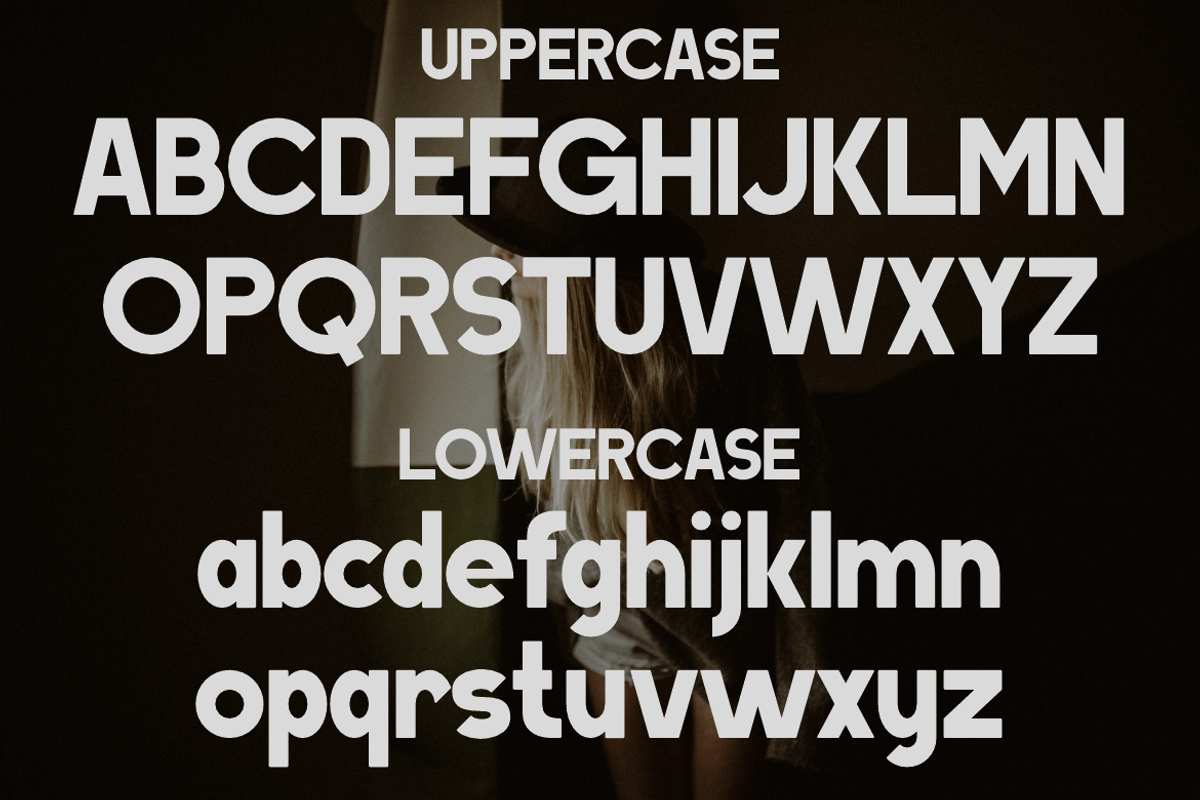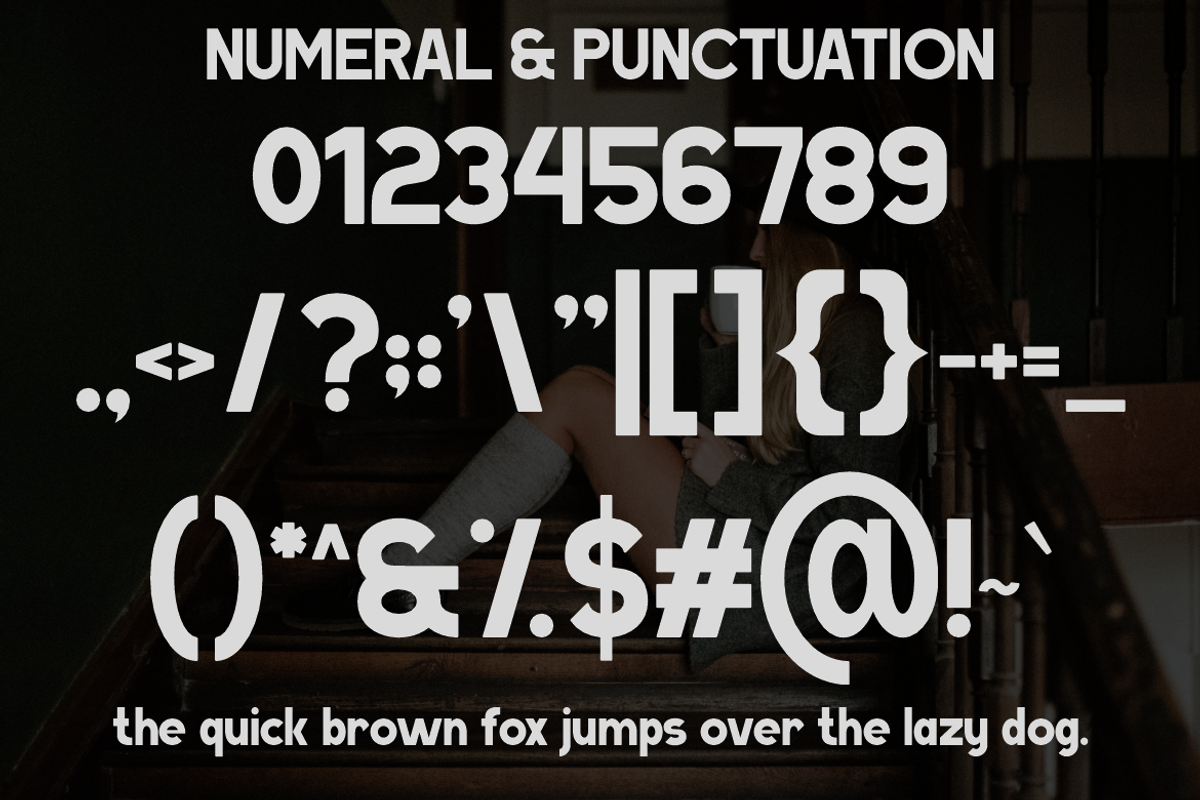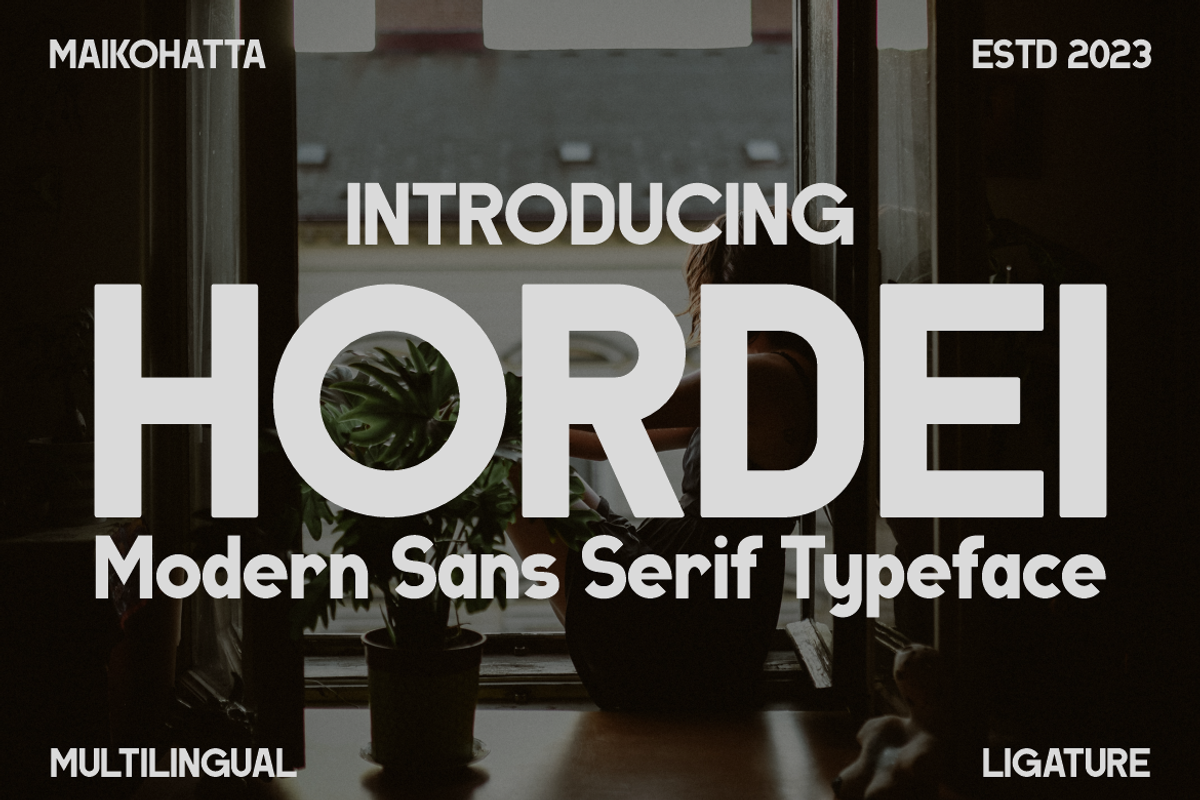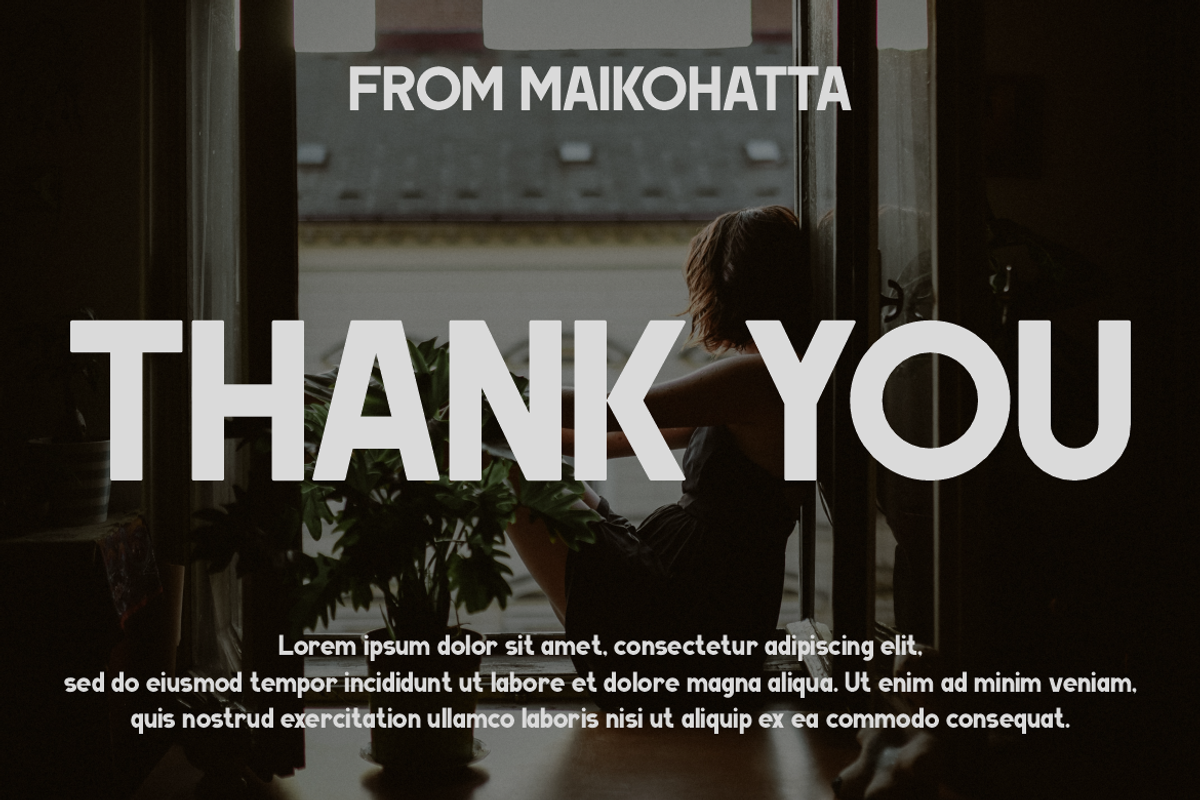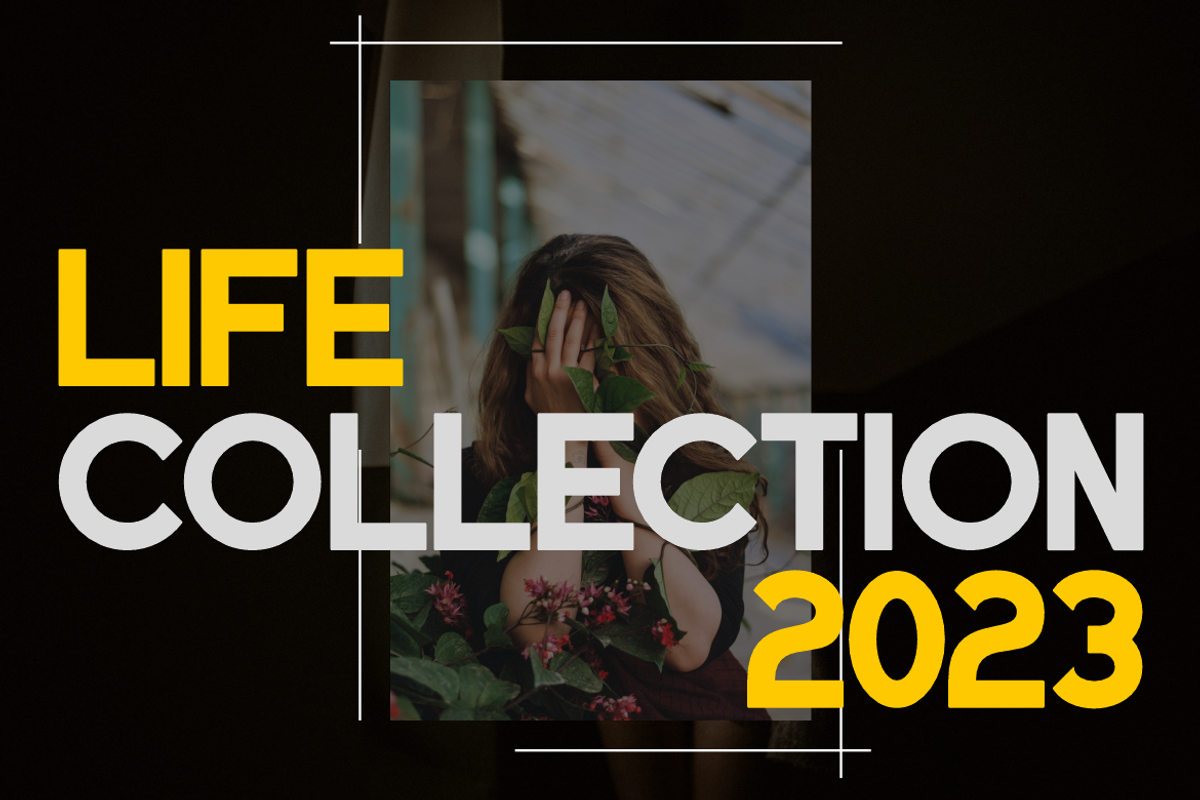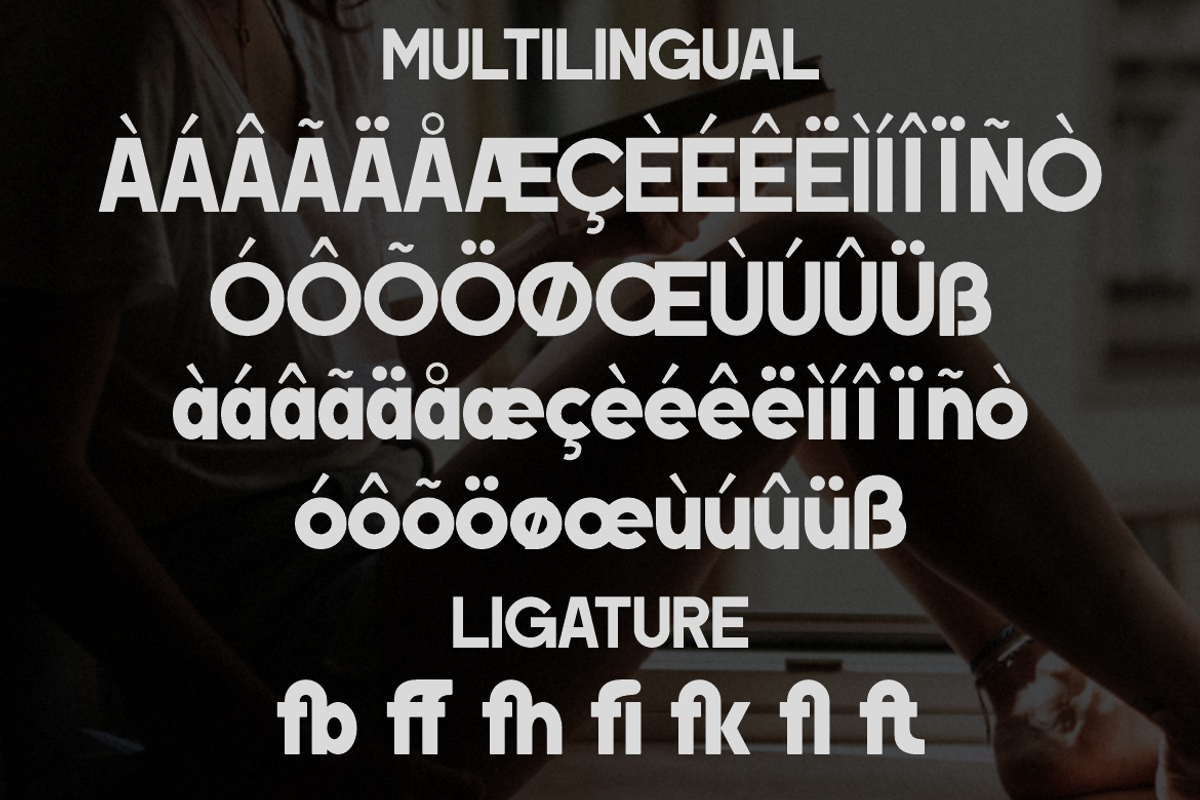
Hordei - Modern Sans Serif Typeface
Introducing our new product Hordei - Modern Sans Serif Typeface
Hordei - Modern Sans Serif Typeface is a bold and authentic display font. The font is suitable for any branding project like logo, template design, esport, and many more. outstanding in a wide range of contexts.